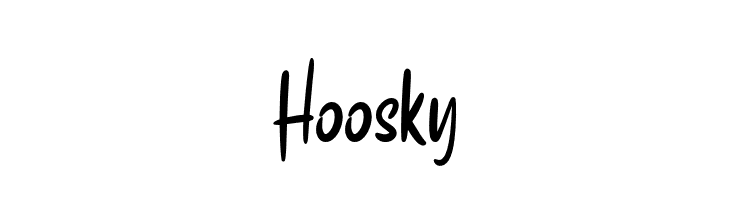
A dynamic and fluid handwritten script with elegant, flowing connections and varied stroke weights.
A playful and dynamic handwritten font with bold, expressive strokes.
An elegant, flowing script font with smooth, cursive strokes and graceful curves.
Lively handwritten script font.
Casual handwritten script font.
Bold, expressive handwritten script font.